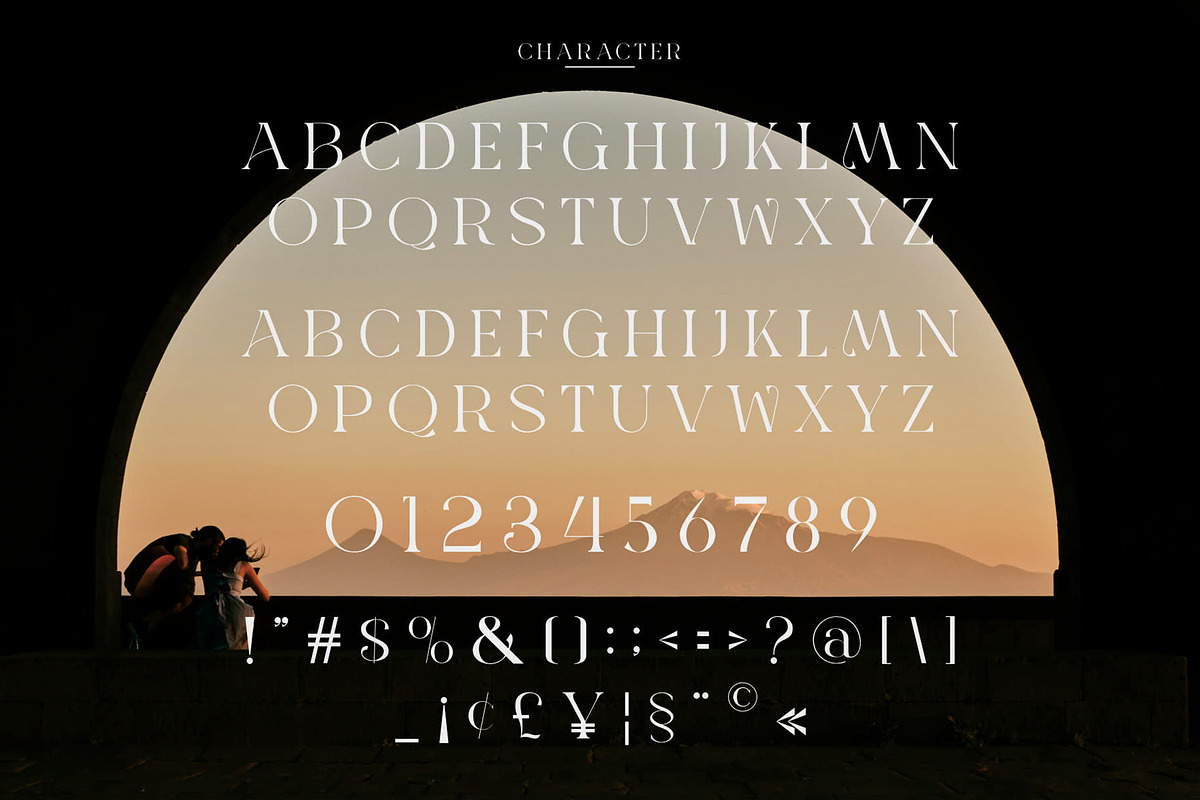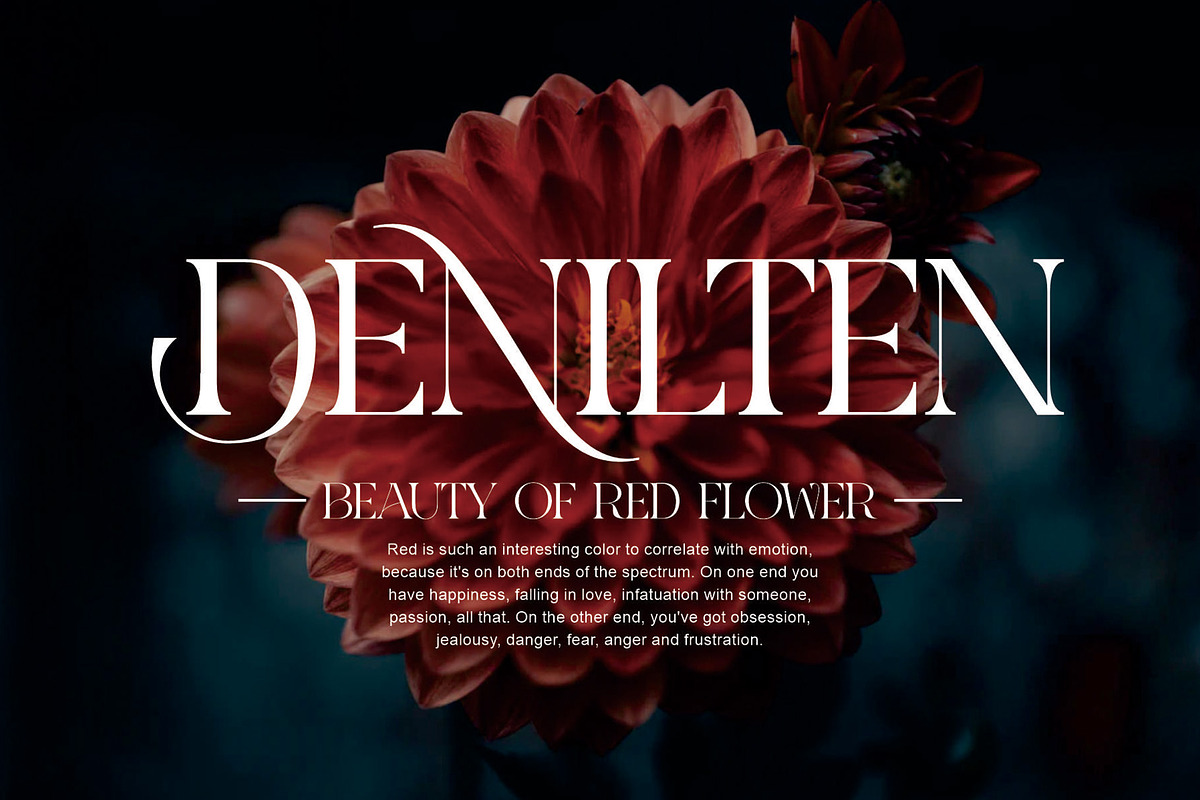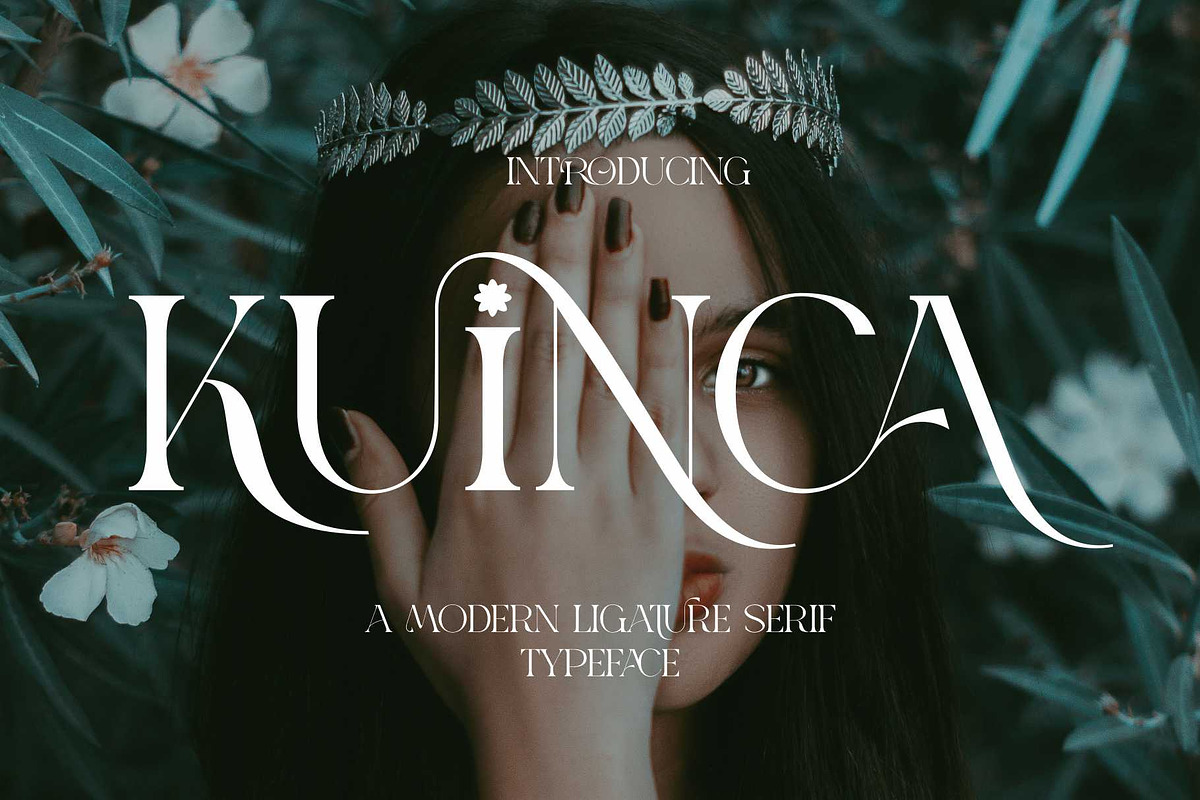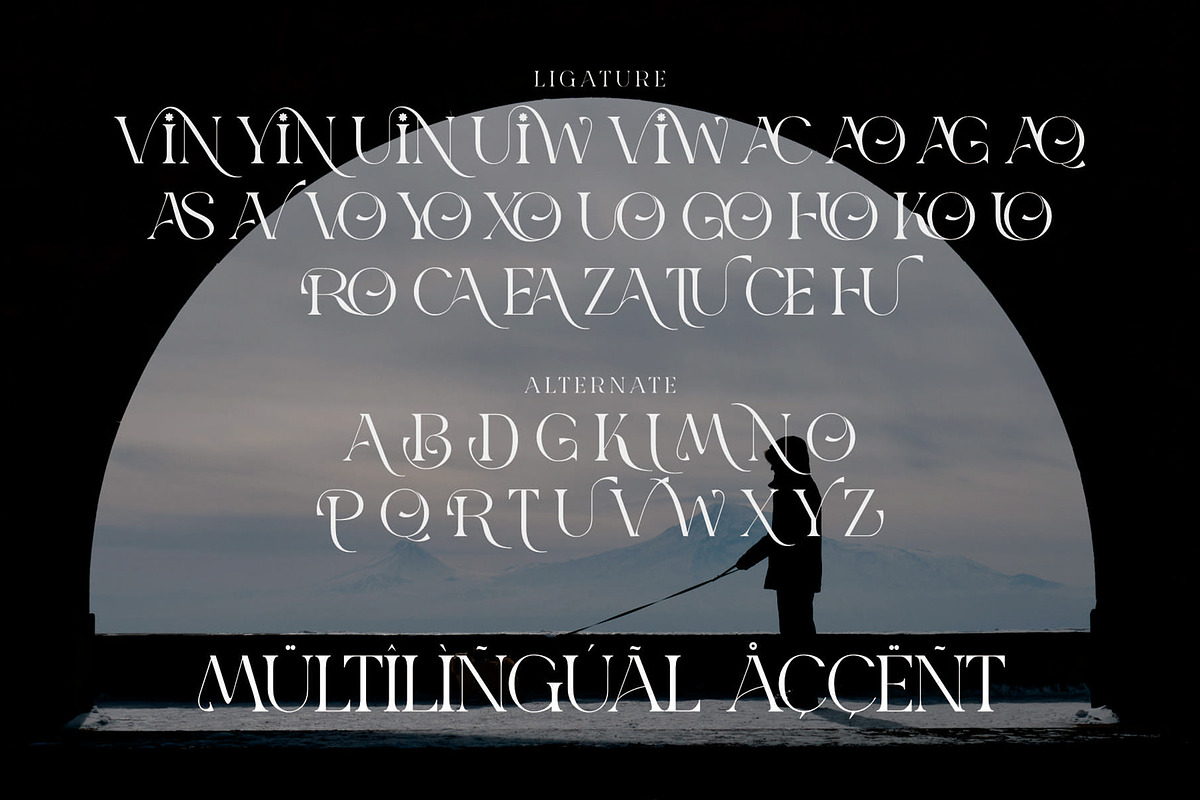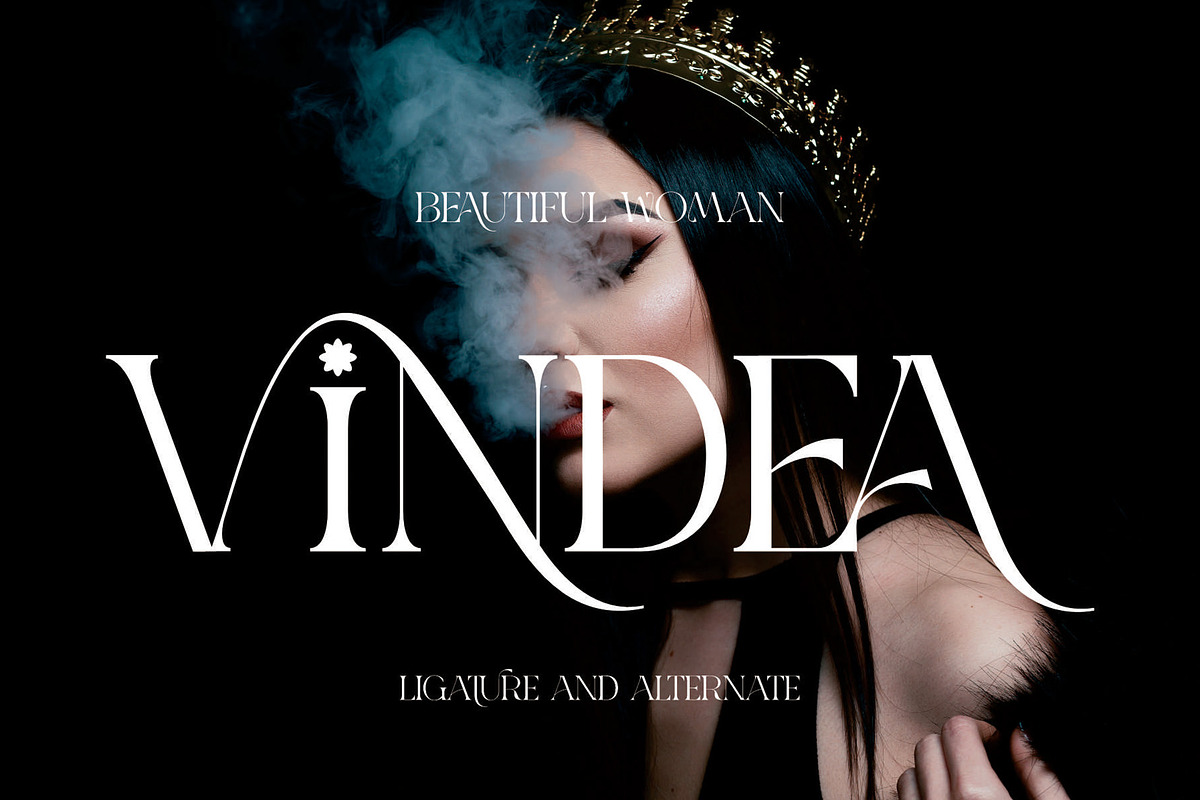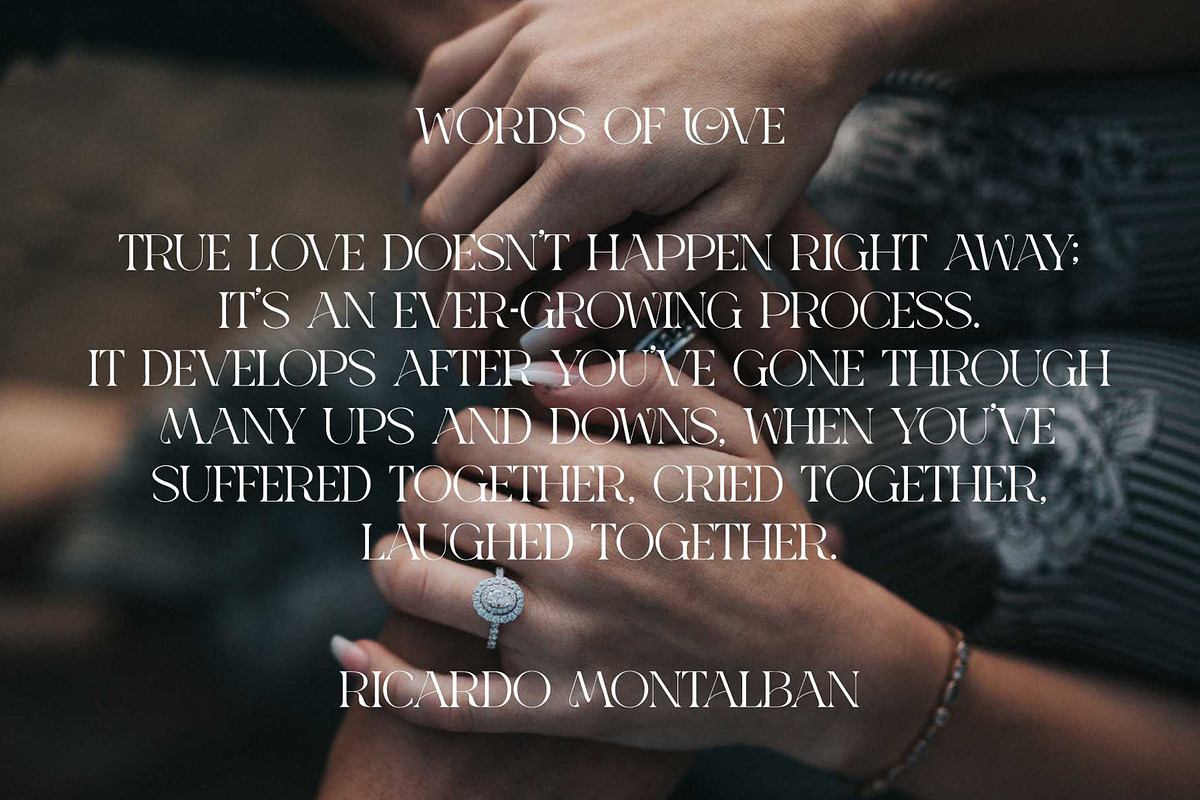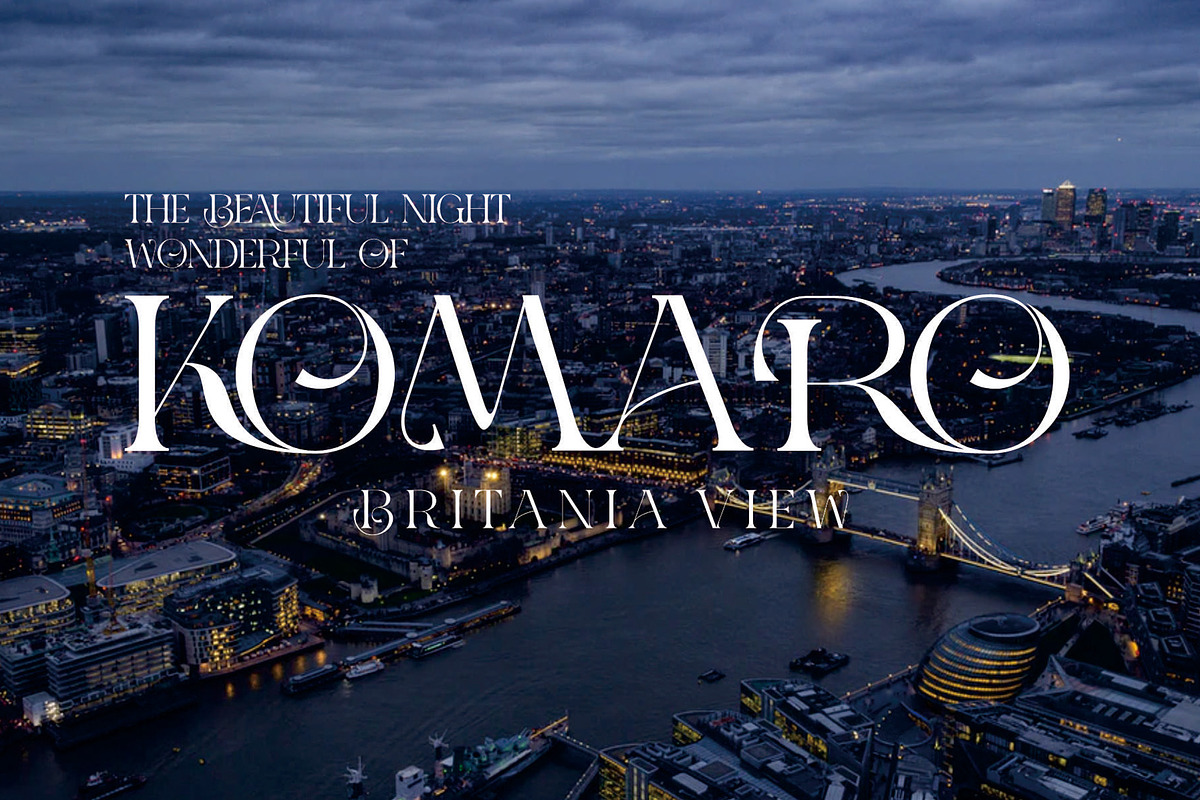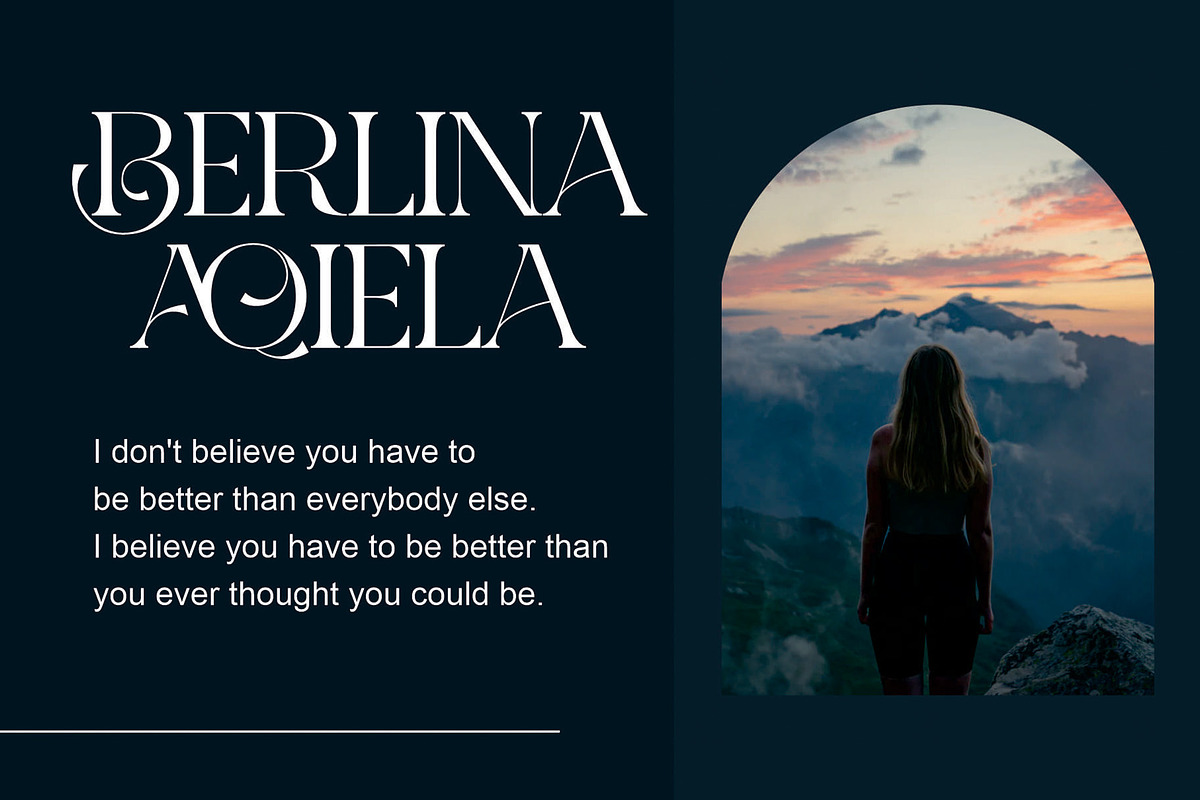
KUINCA Modern Ligature Serif
KUINCA Modern Sans Serif Typeface inspired by the famous minimalist logo perfect for the purposes of designing templates, brochures, videos, advertising branding, logos, invitation, layout design, elegant crafting, beauty design and